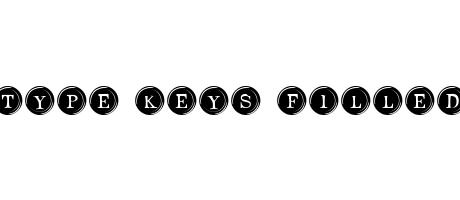
Type Keys
Type Keys Filled is a retro-styled typeface evoking the feel of a vintage typewriter. Each letter is presented as a distinct circular key, suggesting a mechanical, tactile quality. The font is clean and legible, with a classic serif style adding to its nostalgic charm. Its simplicity makes it versatile, suitable for logos, headlines, or any design needing a vintage touch.